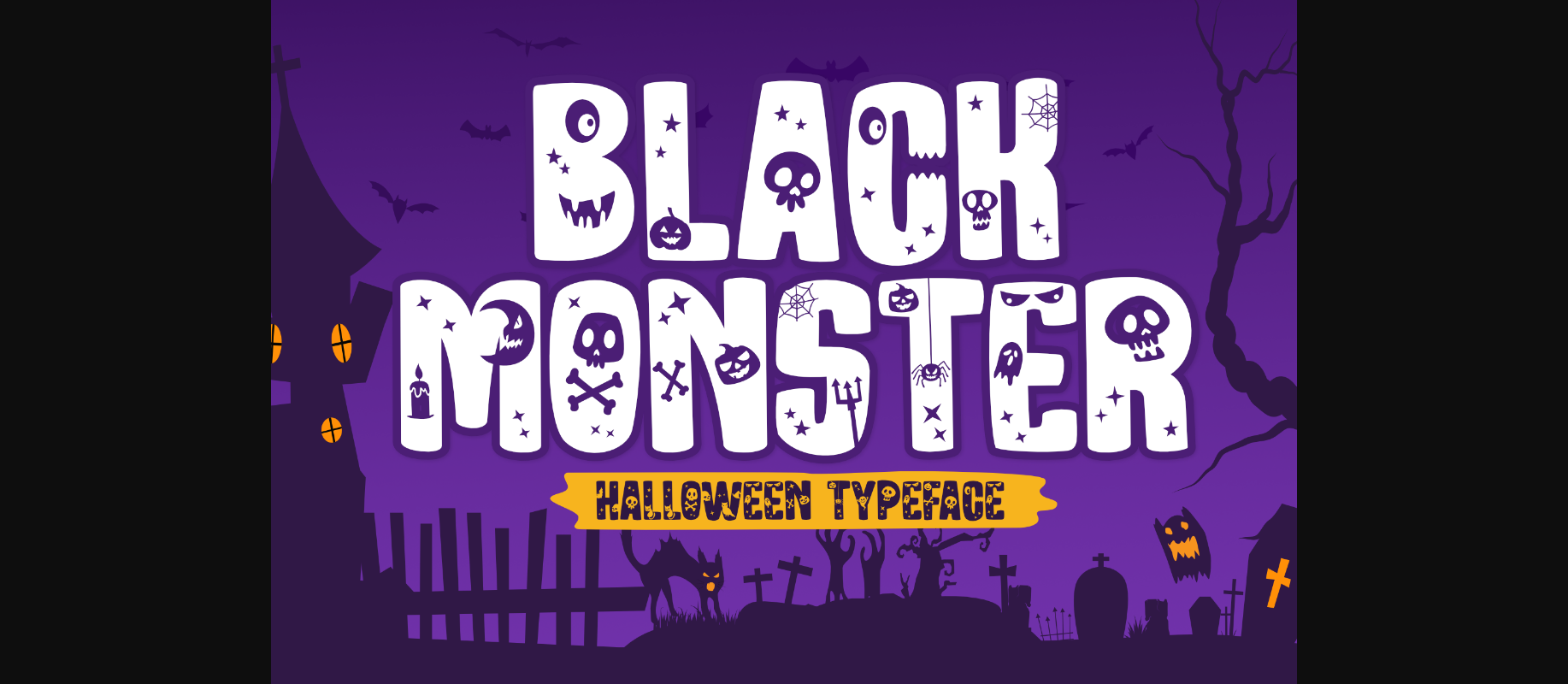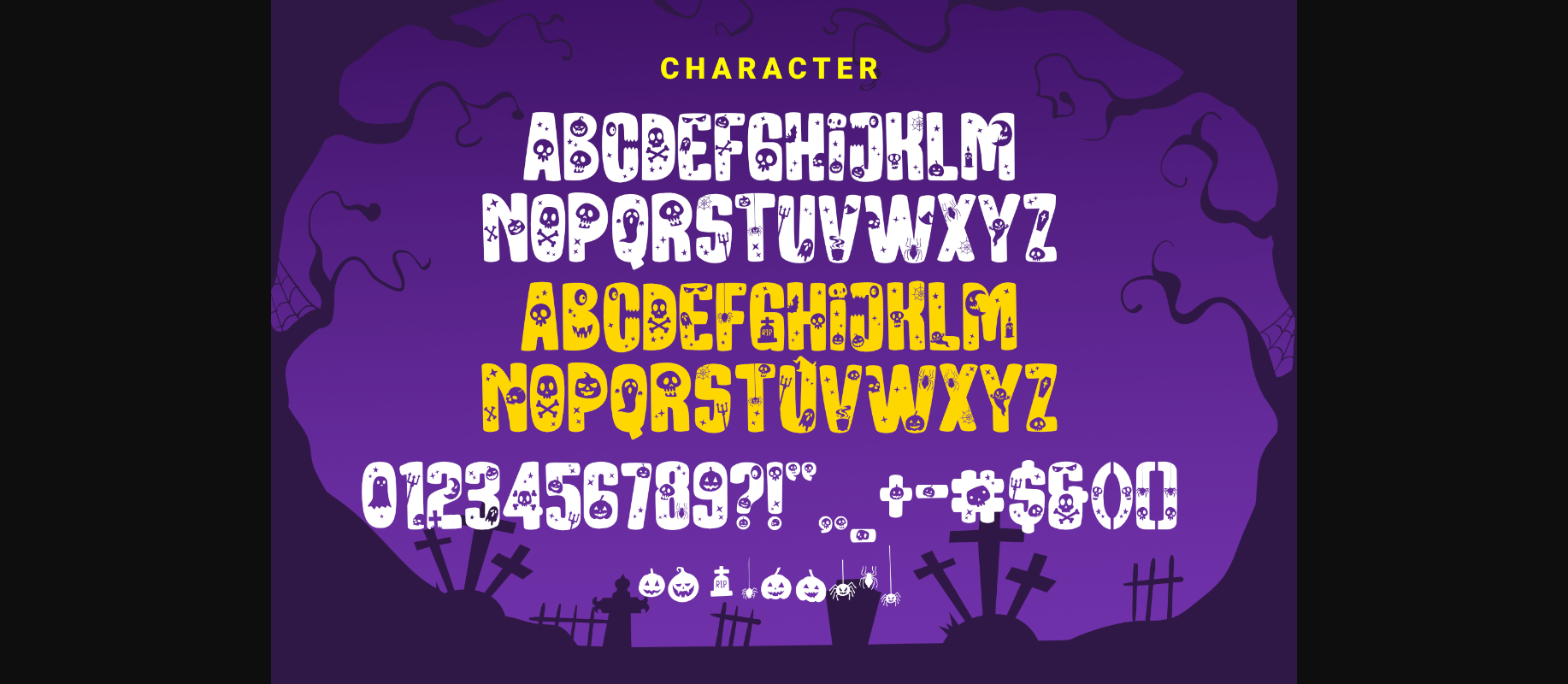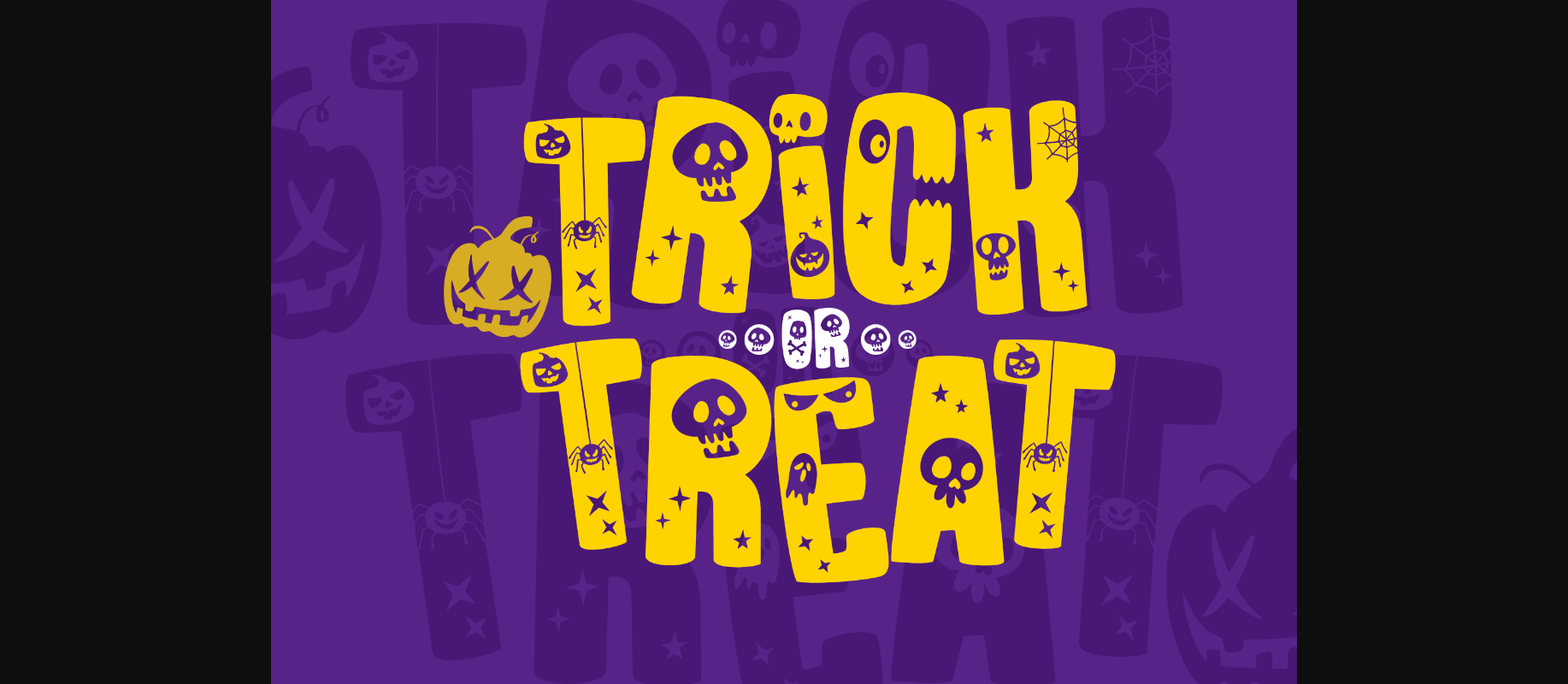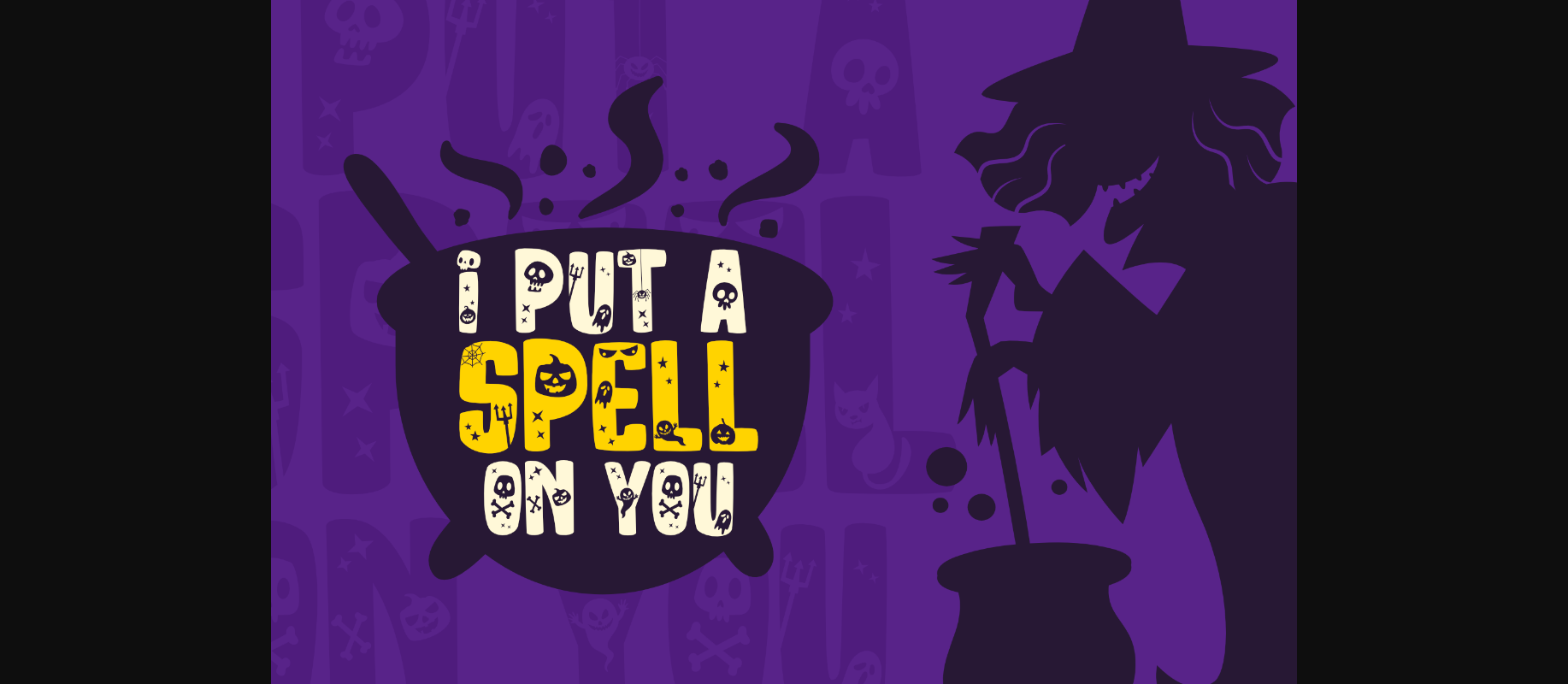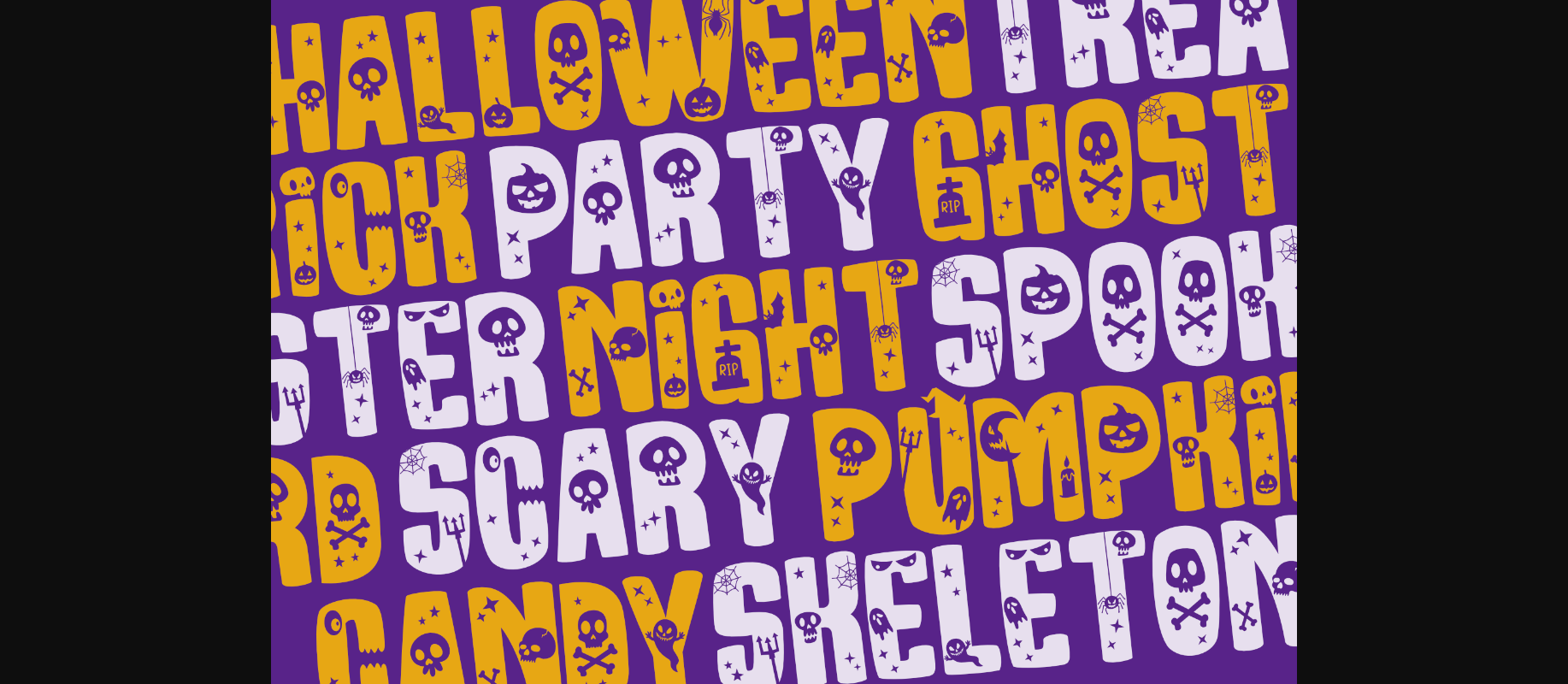
Black Monster Font
About Black Monster Font
Black Monster is a bold and spooky decorative font. Add it to your Halloween crafts, horror movie posters, t-shirts and anything else that requires a spectacular look.